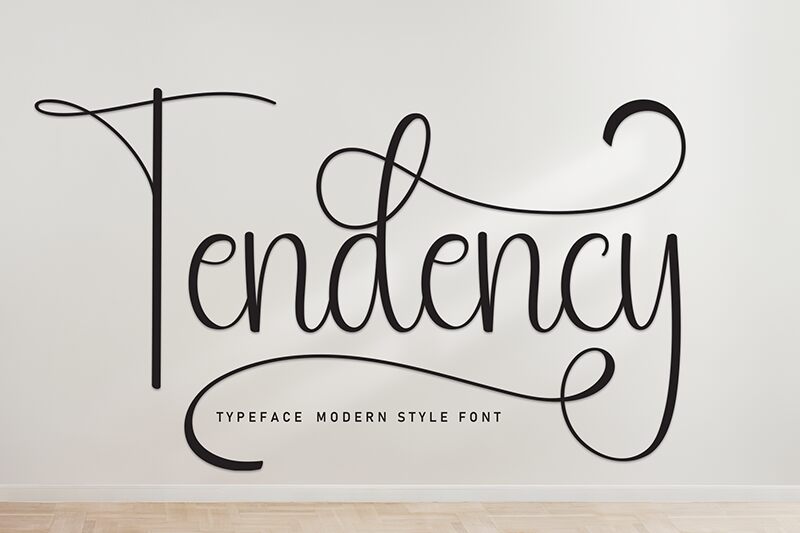
Tendency
Tendency font by Andi Moz is a modern script with an elegant, flowing, and harmonious touch. The sophisticated handwritten typeface has an undeniable style and a tendency to steal the show with its zero tolerance for anything ordinary. Perfectly connected and equally stylish, Tendency will give satisfying artistic results in each and every use.